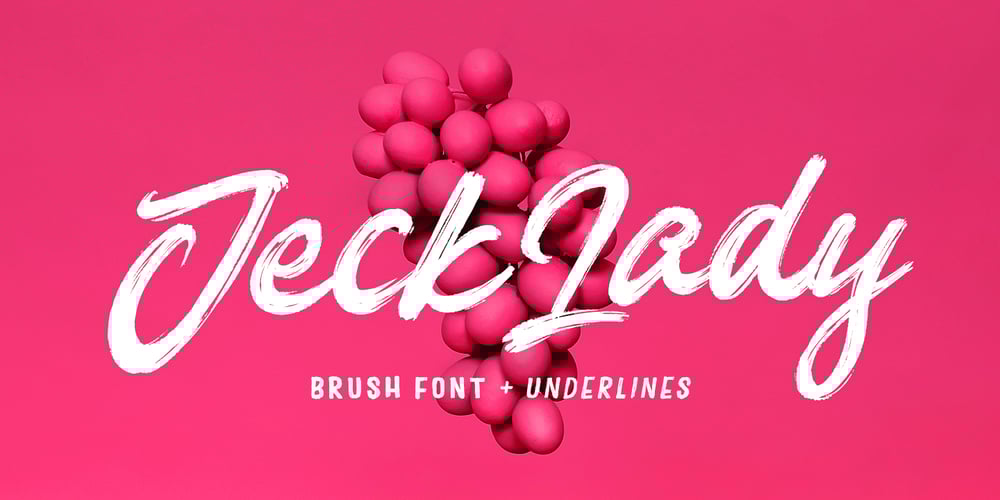
Jeck Lady
Jeck Lady font
Jeck Lady Font Family was designed by Mauli Zari and published by Dhan Studio. Jeck Lady contains 2 styles and family package options. Jeck Lady is a cool font with a thick body style and attractive texture. It’s a modern logo style, made with a calm mind and is quite manly and beautiful.Jeck Lady also has a lot of alternatives, and an underlines bonus that can be used in each sentence. It will look perfect in every design.Jeck Lady is suitable for use in title designs such as clothing, book tittles, stationery designs, quotes, branding, logos, invitations, greeting cards, t-shirts, packaging designs, posters and more.